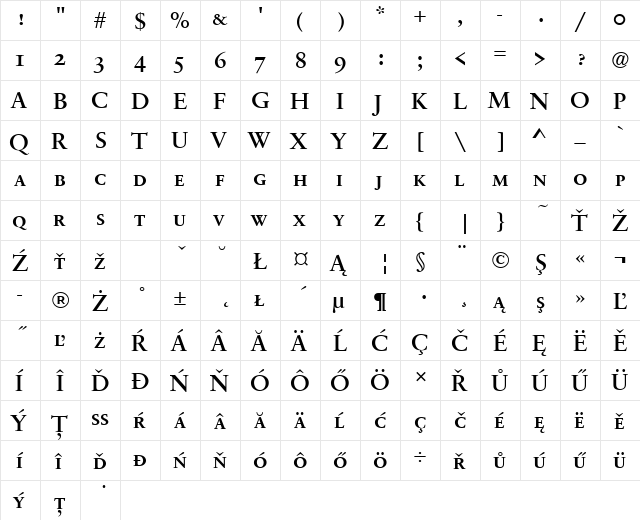
SabiusSCTEEMed Regular
Design Context for SabiusSCTEEMed Typeface
SabiusSCTEEMed takes a measured approach to typography — its balanced proportions and neutral character make it a reliable workhorse for both digital and print work.